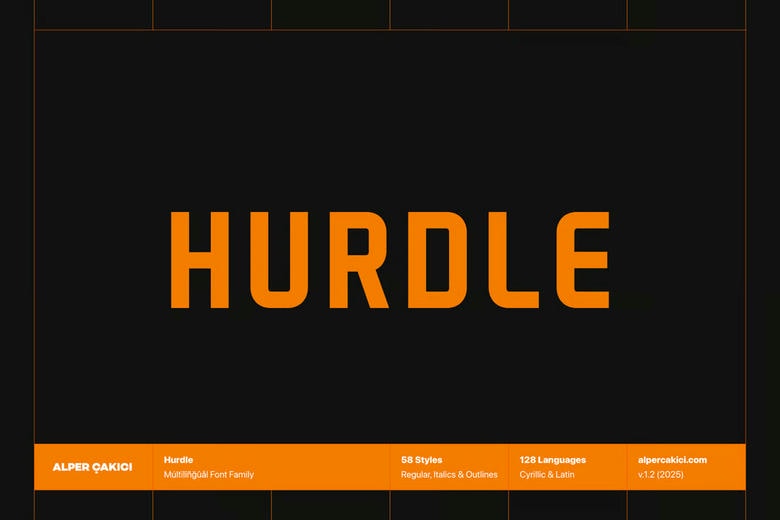
Hurdle Font
Hurdle is a clean, modern sans-serif typeface designed for people who appreciate precision, readability, and simple elegance. It features smooth curves and balanced shapes.
Hurdle adds a polished, modern look to print and digital projects. This versatile sans serif gives your designs clarity, style, and confidence.
Hurdle Sans Serif Font Family